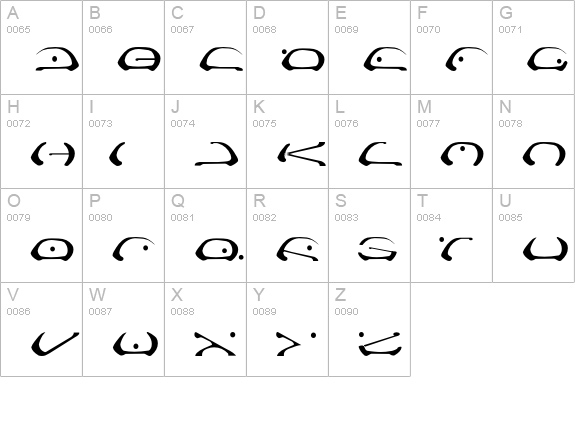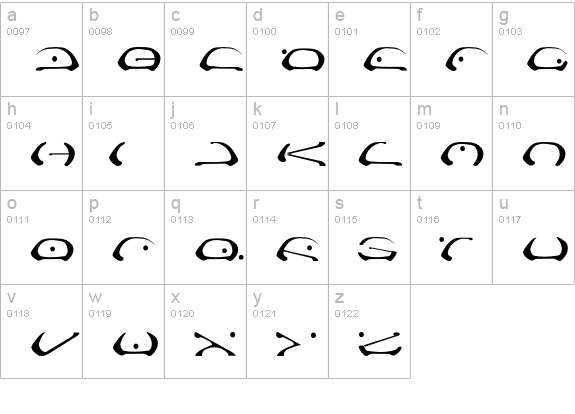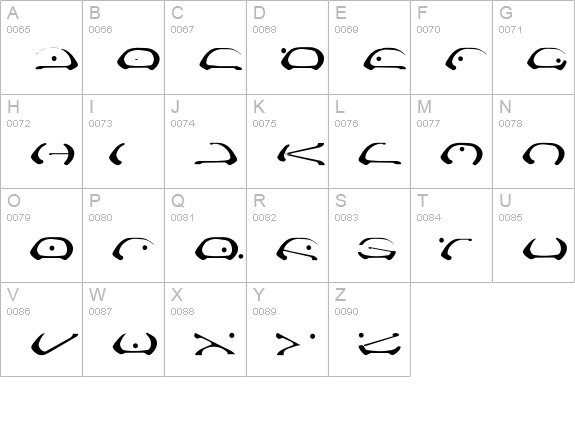
ELKATRONIC font is a modern and dynamic typeface that exudes a futuristic and technological vibe. With its sleek lines and sharp edges, ELKATRONIC is perfect for projects that require a contemporary and edgy look. This versatile font can be used for branding, advertising, posters, and more. The best part? ELKATRONIC font is completely free to download at FontsMarket.com. Now you can elevate your designs with this eye-catching font without breaking the bank. Don't miss out on the opportunity to add ELKATRONIC to your font collection today!